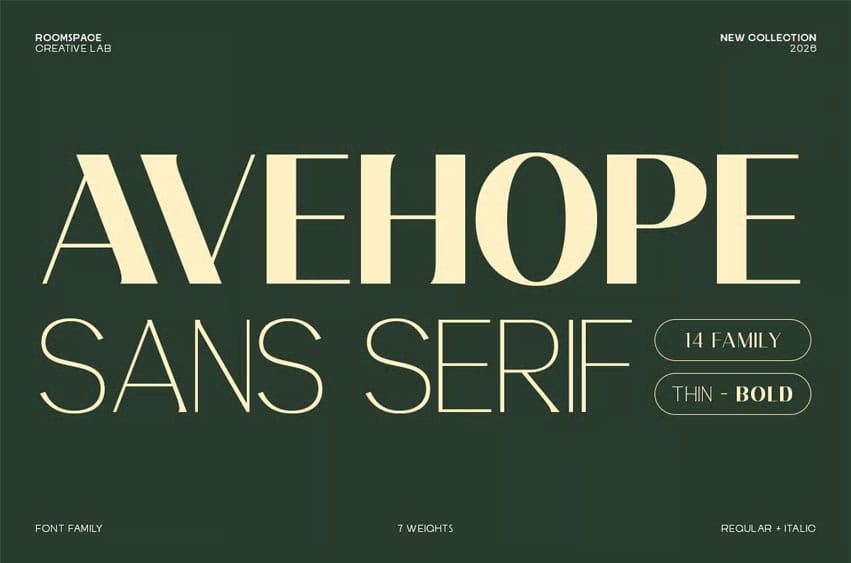
Avehope Sans Serif Font is a sophisticated modern serif font family designed to deliver elegance, clarity, and timeless visual impact. Featuring 14 fonts ranging from Thin to Bold with matching Italics, this typeface combines graceful high-contrast letterforms with modern editorial aesthetics.
Perfect for luxury branding, fashion campaigns, magazine layouts, beauty packaging, logos, and premium digital experiences, Avehope Sans Serif balances classic sophistication with contemporary minimalism. Its refined spacing, clean proportions, and stylish curves make it highly versatile for both display typography and professional branding systems.
- 14 font family (7 weights + Italic)
- Elegant modern serif construction
- High-contrast editorial proportions
- Uppercase & lowercase
- Professional kerning & readability
- Timeless luxury aesthetic
Perfect For: Luxury branding, fashion editorials, beauty packaging, logos, magazines, invitations, boutique brands, hotel identities, social media campaigns, and premium web design.